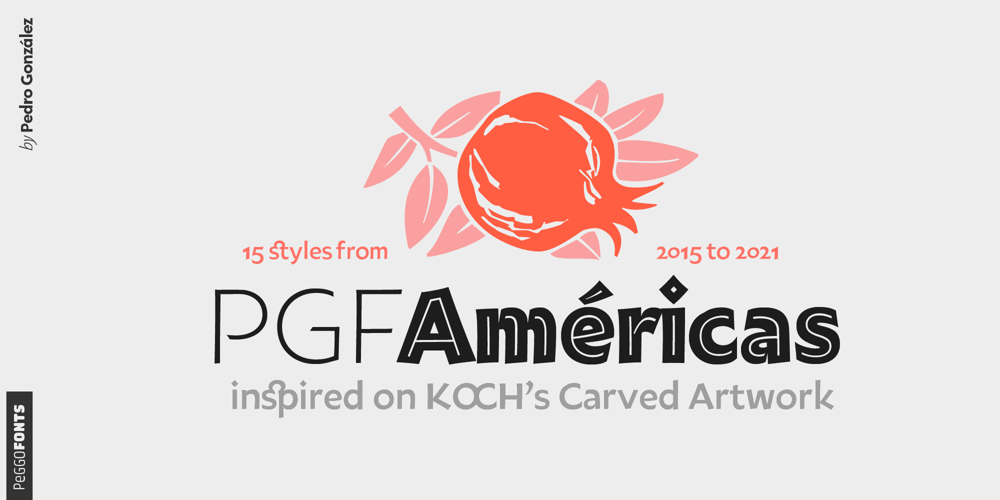
PGF Americas Font Family was designed by Pedro Gonzalez Jorquera, PeGGO Fonts and published by PeGGO Fonts. PGF Americas contains 15 styles and family package options. PGF-Americas is a font family, created by Pedro González for Peggo Fonts between 2015 and 2021. Inspired by Rudolf Koch’s Carved Letter design artwork. PGF-Americas delivers a readable, playful, and versatile experience through a font-weight range that goes from thin to ExtraDark plus two Inline weights, an Initials set, one set with ornaments and the other with weather theme dingbats that follow a coherent rhythm and proportions of the family core. An expressive tool that can consistently be applied as decorative complements to solve label, books & movie cover design, headlines, posters and friendly educational products.It adds generous OpenType features with the same spirit as the default versions. Access All Alternates Glyphs Composition/Decomposition Localized Forms Subscript Scientific Inferiors Superscript Numerators Denominators Fractions Ordinals Linig Figures Proportional Figures Tabular Figures Oldstyle Figures Case-Sensitive Forms Discretionary Ligatures Standard Ligatures Full Widths Swash Stylistic Alternates Stylistic Set 1, Stylistic Set 2, Stylistic Set 3, Stylistic Set 4 It supports over 300 Latin based languages:Abenaki, Afaan Oromo, Afar, Afrikaans, Albanian, Alsatian, Amis, Anuta, Aragonese, Aranese, Aromanian, Arrernte, Arvanitic (Latin), Asturian, Atayal, Aymara, Azerbaijani, Bashkir (Latin), Basque, Belarusian (Latin), Bemba, Bikol, Bislama, Bosnian, Breton, Cape Verdean Creole, Catalan, Cebuano, Chamorro, Chavacano, Chichewa, Chickasaw, Cimbrian, Cofán, Cornish, Corsican, Creek, Crimean Tatar (Latin), Croatian, Czech, Danish, Dawan, Delaware, Dholuo, Drehu, Dutch, English, Esperanto, Estonian, Faroese, Fijian, Filipino, Finnish, Folkspraak, French, Frisian, Friulian, Gagauz (Latin), Galician, Ganda, Genoese, German